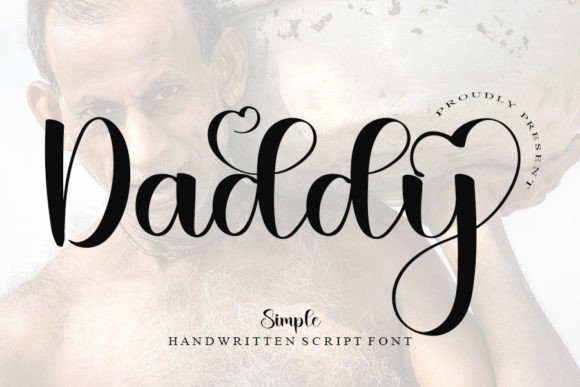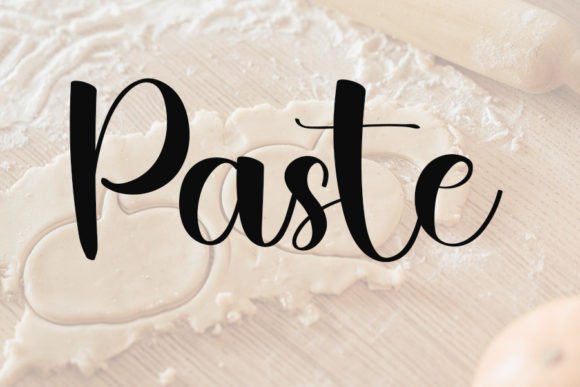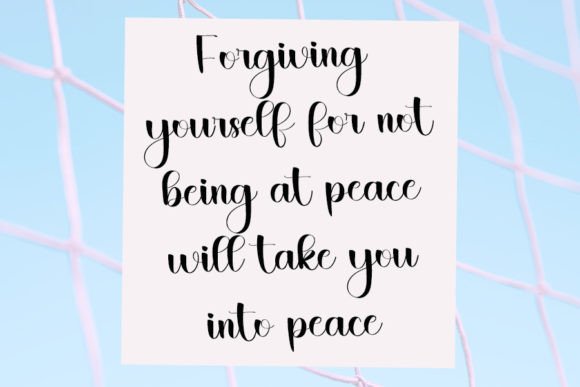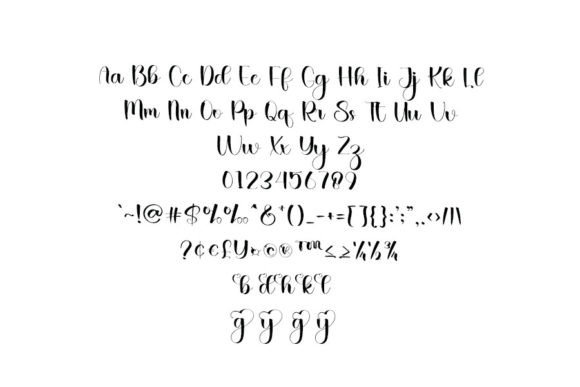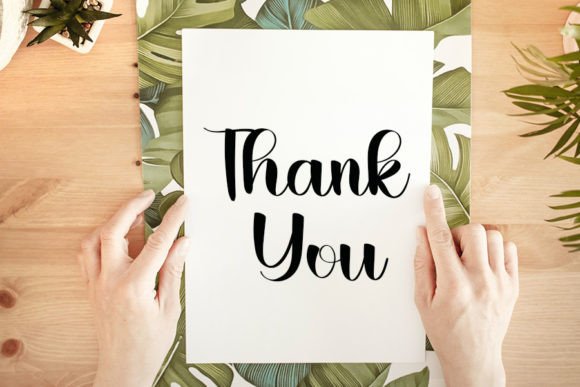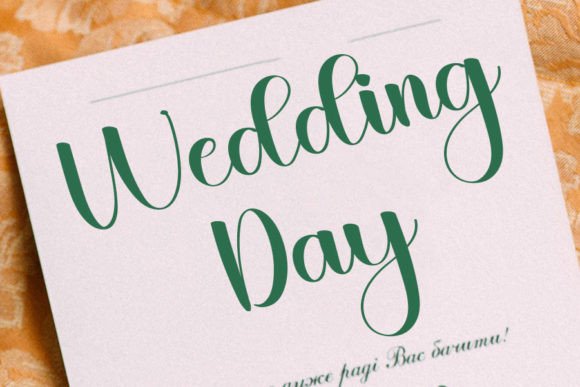
Daddy Font
What Is Daddy Font?
Daddy Font is a neat and beautiful handwritten script designed to bring elegance, clarity, and timeless style to your creative projects. Every letter is carefully crafted with smooth lines and refined shapes that feel both classic and modern. Whether you want to create something sophisticated, friendly, or heartfelt, Daddy delivers a polished, professional look every time.
Its balanced design makes it an essential font for designers who value quality and versatility.
Daddy adapts effortlessly to a wide variety of applications. For example, it’s an excellent choice for wedding invitations, event programs, and stationery. The graceful letterforms create a refined, memorable impression perfect for special occasions.
Logos and branding materials benefit from Daddy’s clean, sophisticated look. Whether you’re working on a boutique brand, artisan products, or creative services, this font helps you build a visual identity that feels timeless and elegant.
Greeting cards, thank-you notes, and personal messages feel more sincere and engaging when you use Daddy’s handwritten touch. Your words will look warm and authentic.
In digital projects like social media graphics, blog headers, and website banners, Daddy brings a sense of style and professionalism that captures attention.
Even product packaging and labels gain sophistication with Daddy’s distinctive script.
Why Should You Choose Daddy Font?
One of Daddy’s greatest strengths is its readability. Even with its elegant handwritten style, every letter remains clear and legible at any size. Whether you’re designing small labels or large headlines, your text will always look polished.
It pairs beautifully with clean serif or sans-serif fonts, giving you flexibility to build cohesive, modern layouts.
Designers love that Daddy looks professional out of the box, saving time while delivering beautiful results.
Daddy Font brings warmth, elegance, and authenticity to any project. Its smooth curves and balanced proportions create an emotional connection that helps your work stand out.
Even minimalist designs gain personality and sophistication when you use Daddy. Whether you’re crafting a wedding suite or building a brand, this font elevates your visuals effortlessly.
Using a high-quality handwritten script demonstrates your commitment to thoughtful design. Clients and customers will notice and appreciate this attention to detail, helping you build trust and stand apart.
Daddy Font is more than just a beautiful script—it’s a versatile design asset that helps you share ideas with clarity and style. From invitations and branding to packaging and digital content, this font adapts seamlessly to any project and leaves a lasting impression.